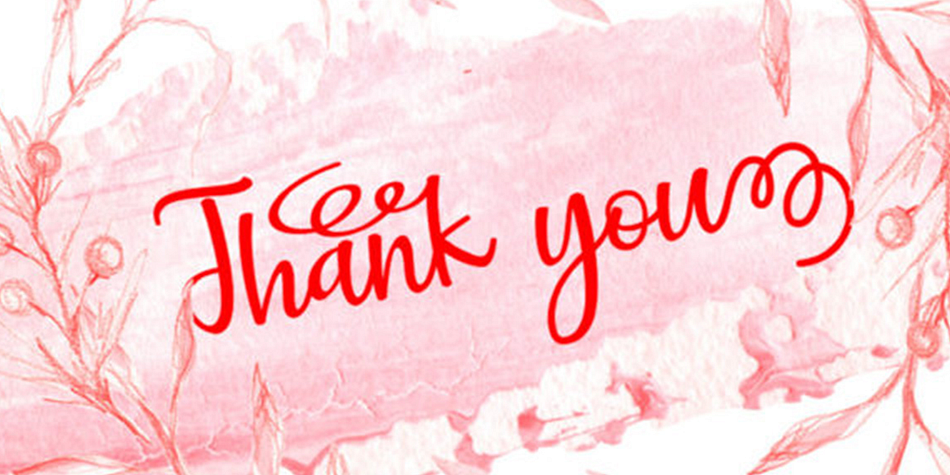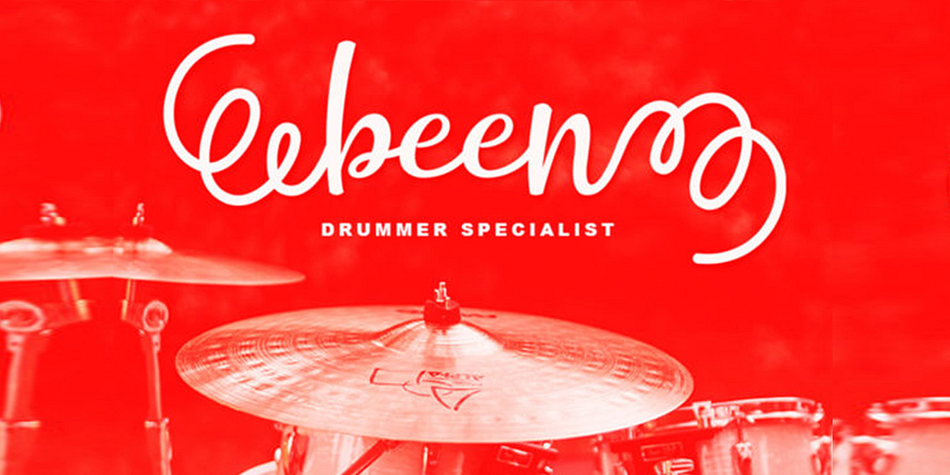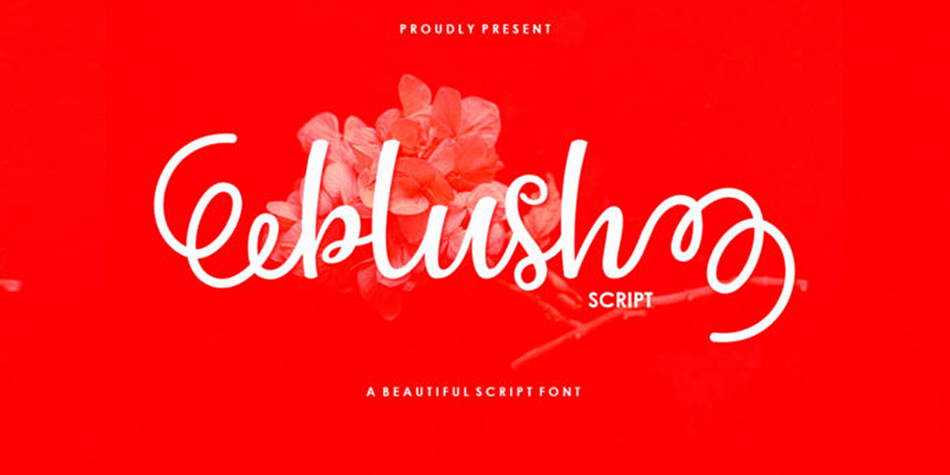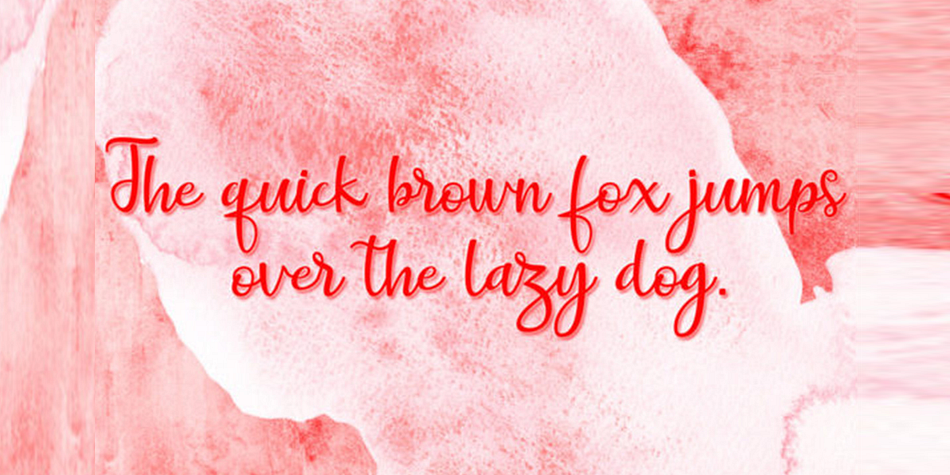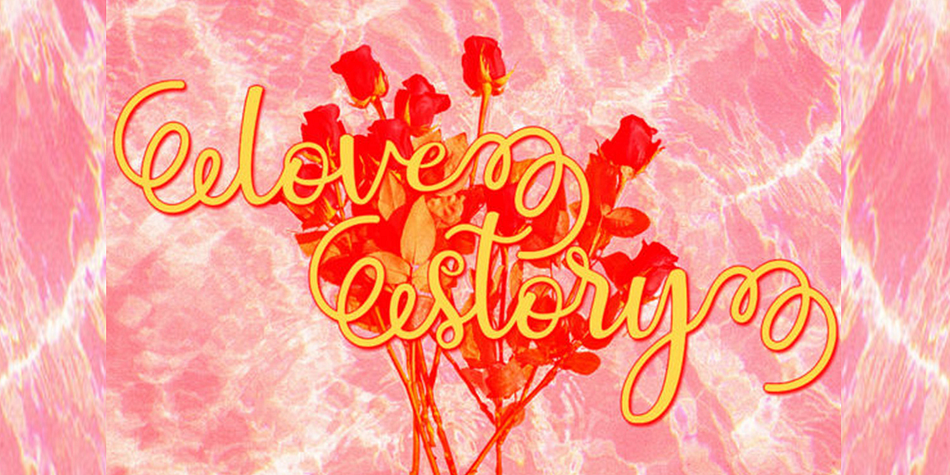
Blush
Blush is a brush script font family published by Gatype.
Blush Script is a lovely script font featuring charming, playful characters that seem to dance along the baseline. Add it to your most creative ideas, and notice how it makes them stand out! This font is PUA encoded which means you can access all glyphs and swashes with ease!